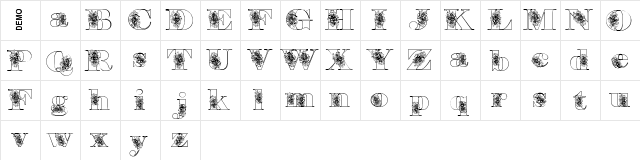
Floryan Demo
Design Context for Floryan Typeface
Floryan is a composed and adaptable typeface that performs quietly and consistently across a wide range of design contexts.